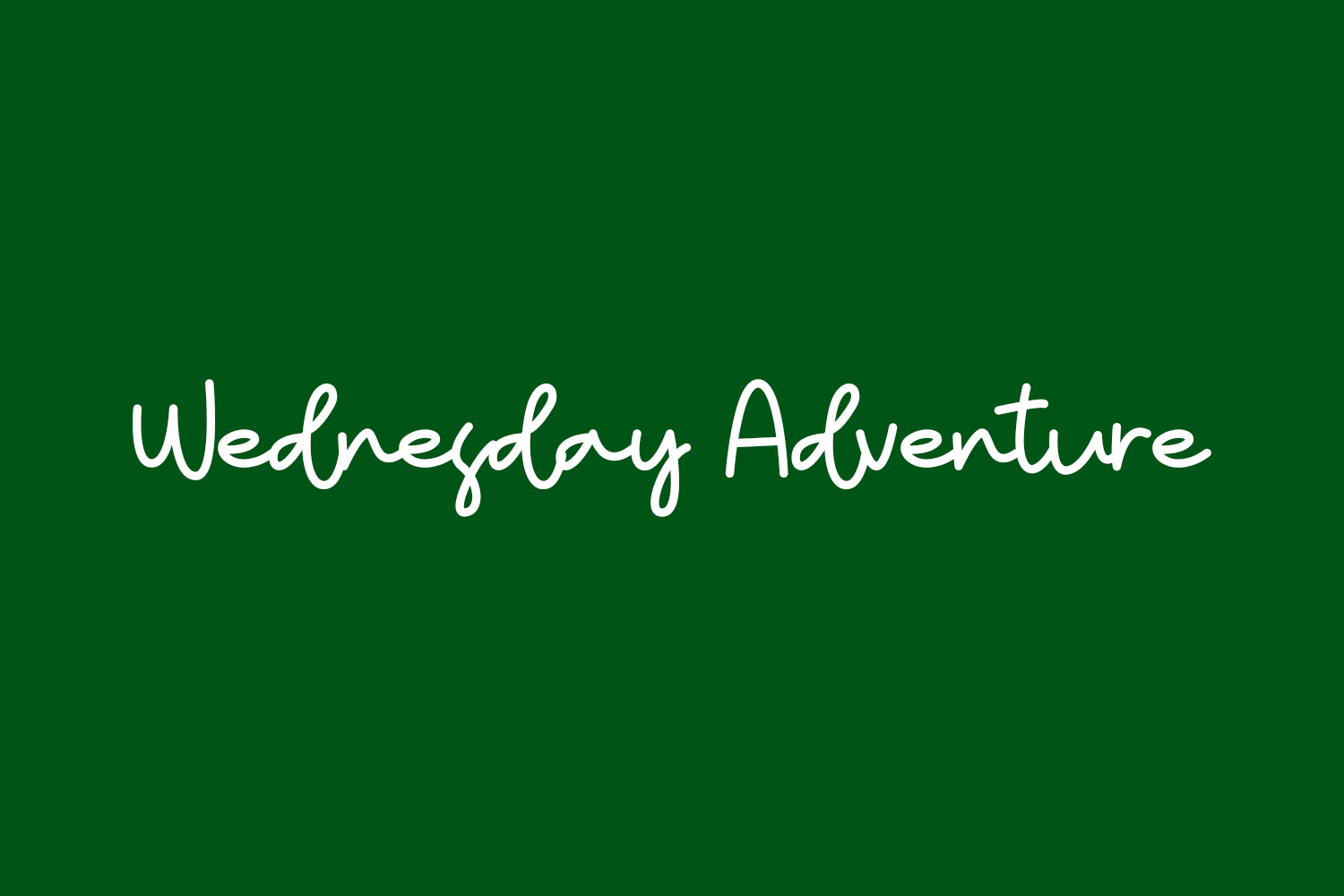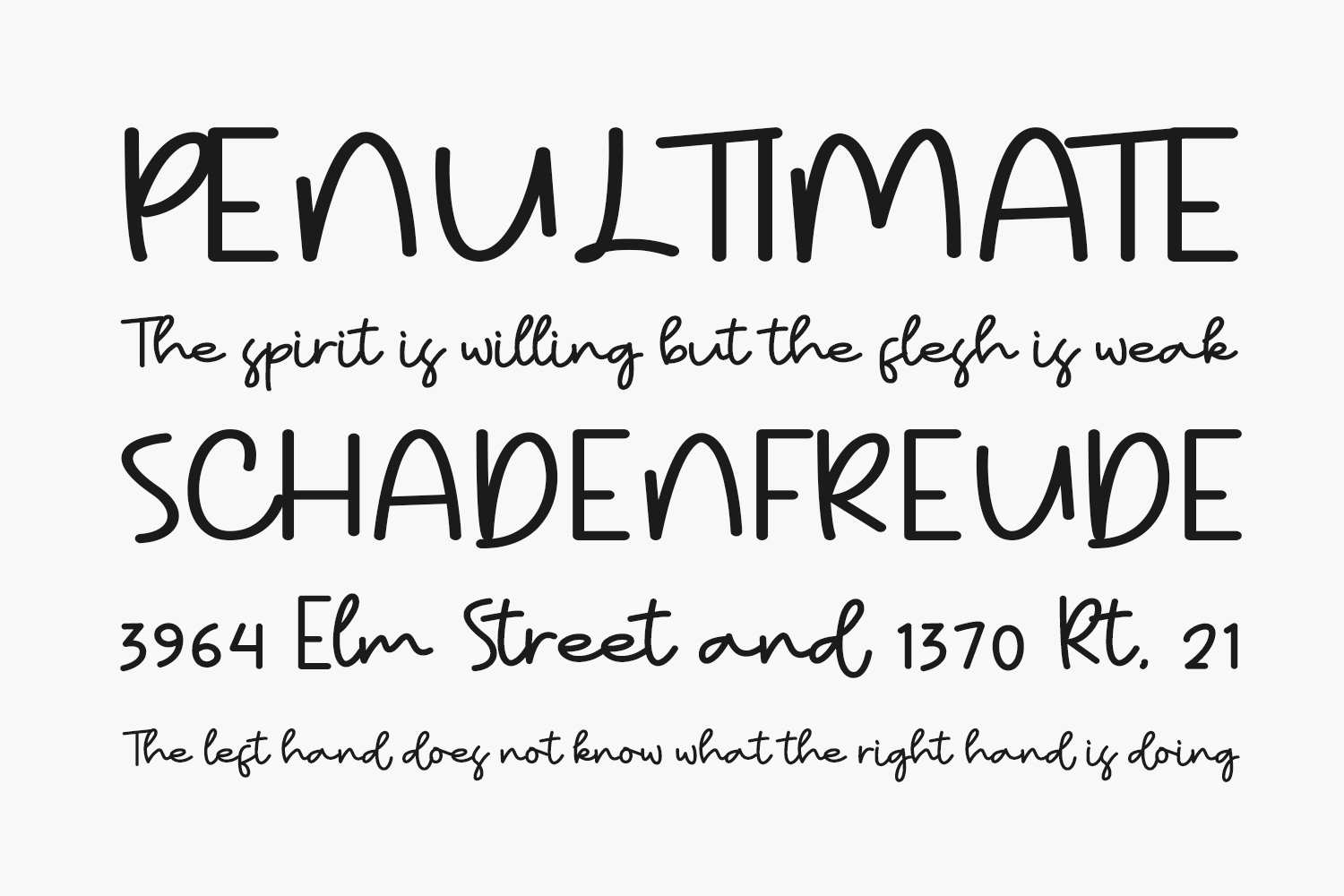
Wednesday Adventure Free Font is a sweet and friendly handwritten font. Its natural and unique style makes it incredibly fitting to a large pool of designs. The only limit is your imagination. Wednesday Adventure Free Font was designed by ONG Type and is free for personal use only. Please purchase the full version for commercial use.